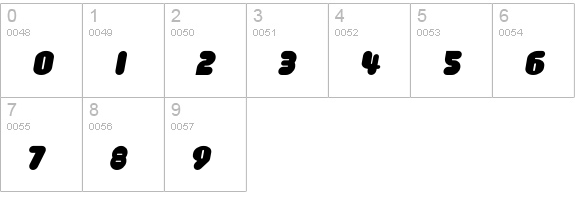
Luvbug-Bold is a strong, high-contrast variant in the Luvbug typeface family \xE2\x80\x94 well suited to headlines, attention-grabbing titles, and strong calls-to-action.
Luvbug-Bold is a bold and striking font that exudes a sense of playfulness and charm. Its rounded edges and whimsical design make it perfect for adding a touch of personality to any project. Whether you're crafting a fun invitation, designing a quirky logo, or creating eye-catching signage, Luvbug-Bold is sure to make a statement. What makes Luvbug-Bold even more appealing is that it is available for free download at FontsMarket.com. This means you can easily access this delightful font and incorporate it into your design projects without any additional cost. Embrace the creativity and uniqueness that Luvbug-Bold brings, and let your imagination run wild with this freely available typeface.